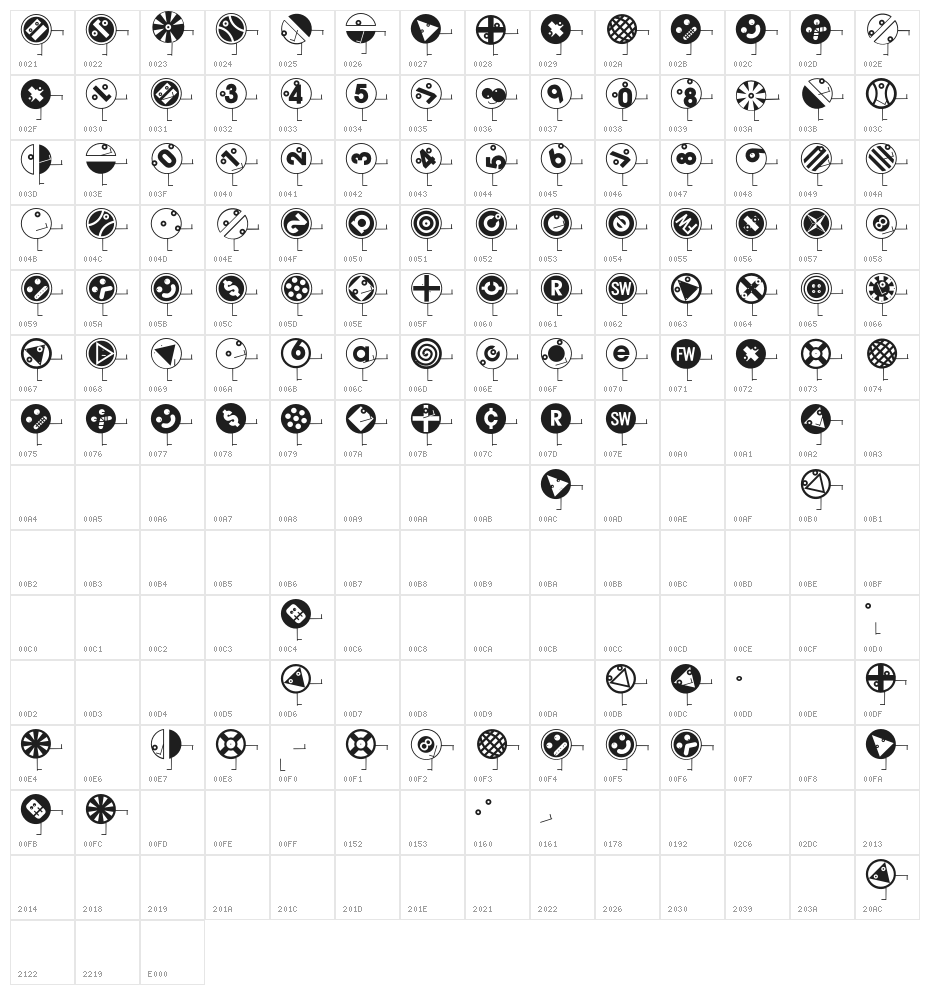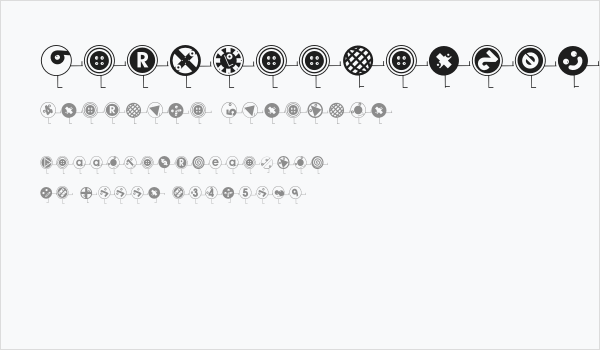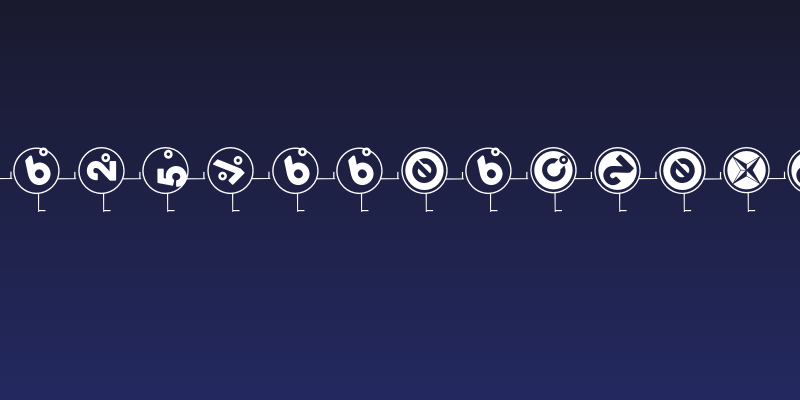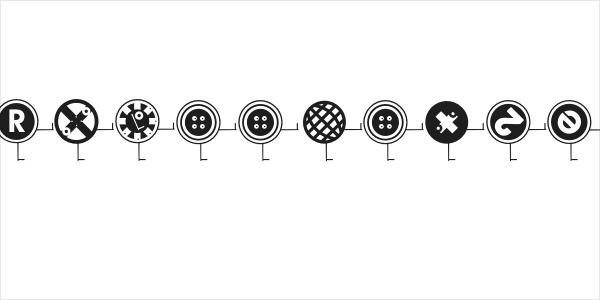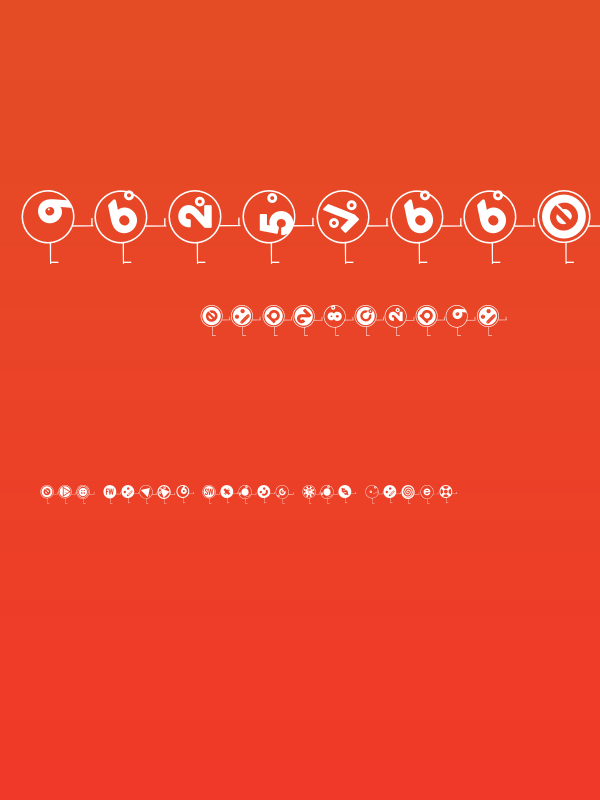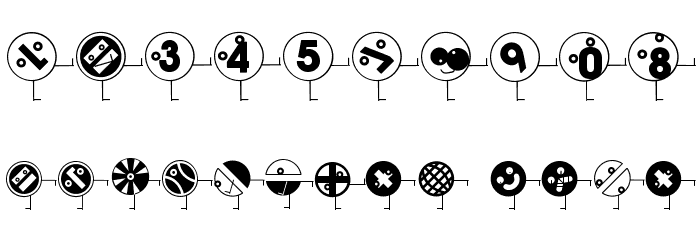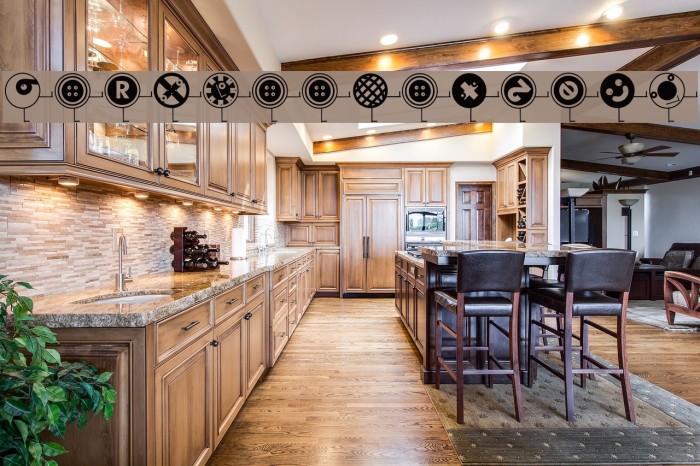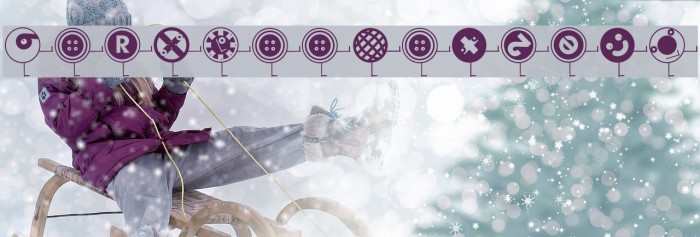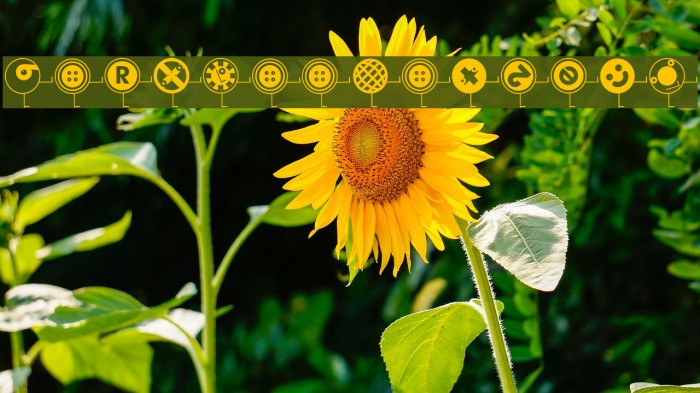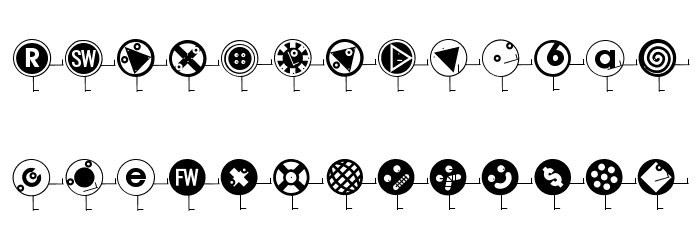
HeadfeeterOTwo Font
HeadfeeterOTwo Description
This font is a highly decorative and abstract design, featuring characters enclosed within circular shapes. Each character is uniquely styled with a combination of geometric patterns, lines, and dots, creating a playful and artistic appearance. The design is consistent across all characters, maintaining a balance between filled and outlined elements. The font's whimsical nature makes it stand out, with each letter and number offering a distinct visual identity. This font is not suitable for body text due to its intricate design but excels in creative and artistic applications.
| Use Case | Logos, Posters, Artistic Branding |
| Proposed Projects | Ideal for creative projects such as posters, album covers, and artistic branding where a unique and playful style is desired. |